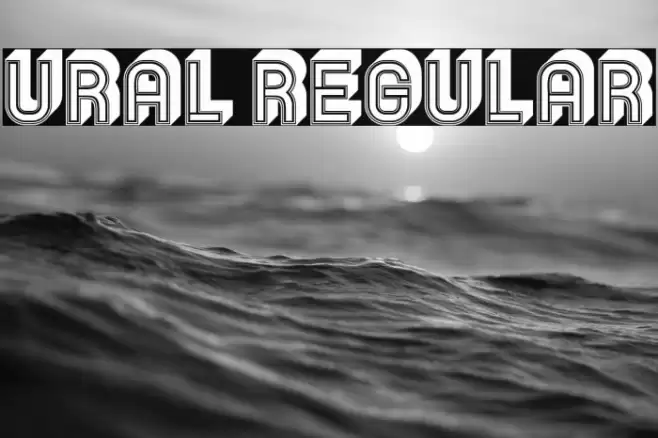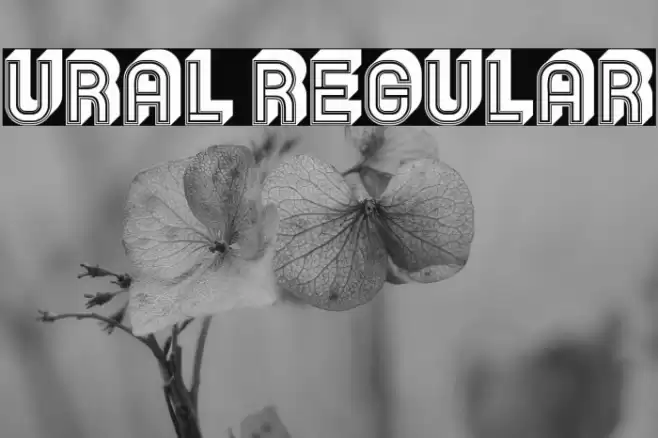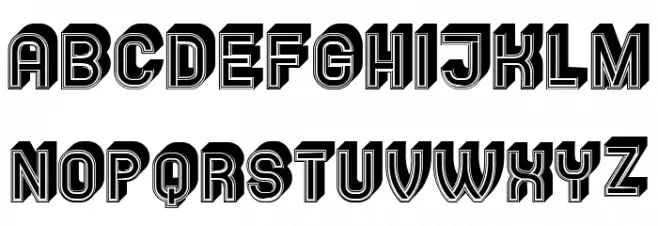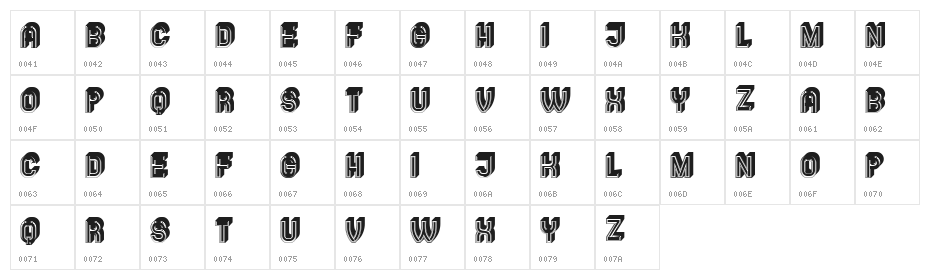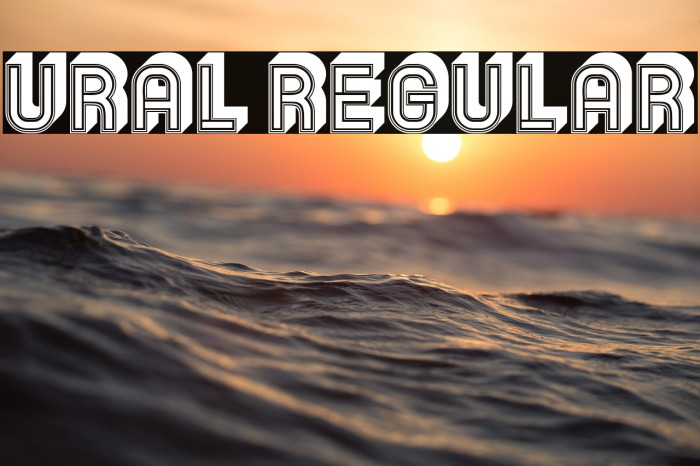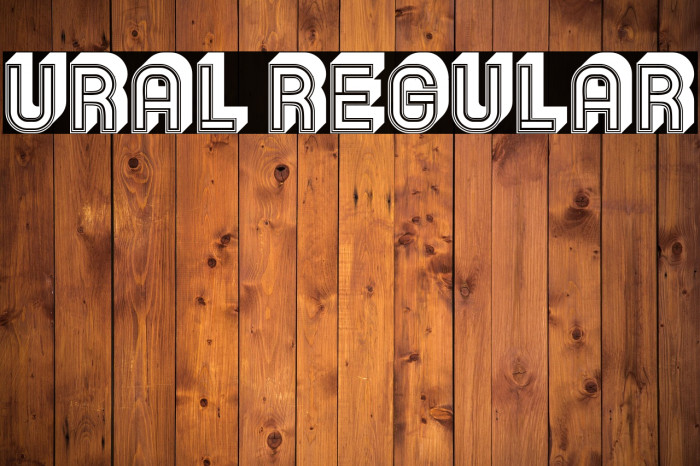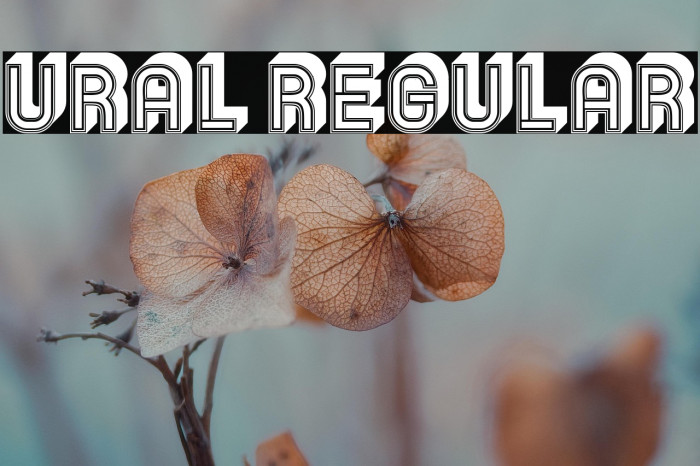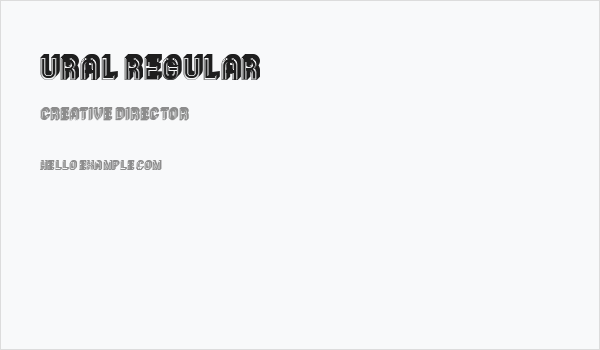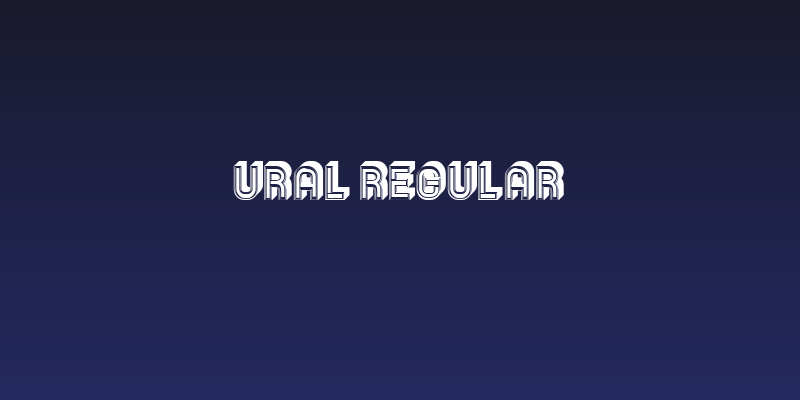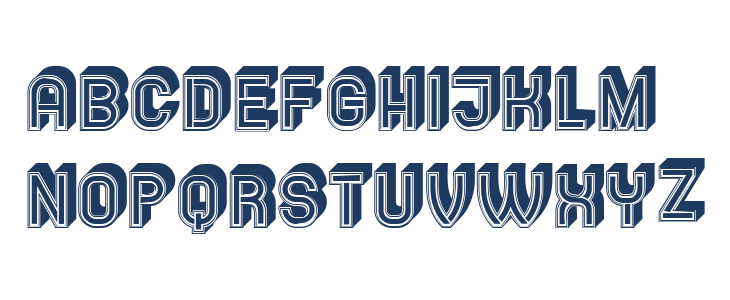
Ural Regular Font
Ural Regular Description
This font features a bold, three-dimensional design with a strong geometric influence. Each letter is outlined with a thick black border, creating a striking contrast against the white interior. The font's structure is rigid and angular, with sharp edges and clean lines that give it a modern, industrial feel. The shadow effect adds depth, making the characters appear to pop off the page. This style is highly decorative and eye-catching, suitable for making a bold statement in any design project.
A bold, three-dimensional font with geometric and industrial influences from Uncategorized fonts.
- Proposed Projects: Ideal for posters, logos, headlines, and any design requiring a strong visual impact.